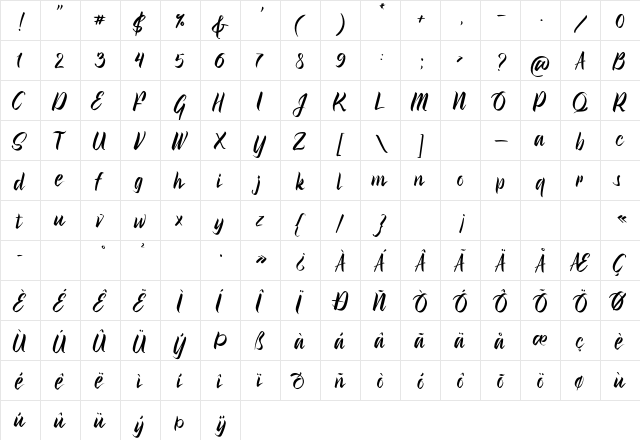
Brush Fila Regular
| Designer | Marcelo SodrΠa.k.a. C˯ Fila |
Design Context for Brush Fila Typeface
Brush Fila flows with the natural rhythm of handwritten lettering, making it ideal for designs that call for warmth and personal expression.
Font Pairing: Combine Brush Fila with a simple geometric sans for maximum contrast — the tension between flowing curves and clean structure is a classic typographic pairing.
Pro Tip: Use Brush Fila for short runs of text — names, titles, or taglines. Extended body copy in script faces tires the eye quickly.